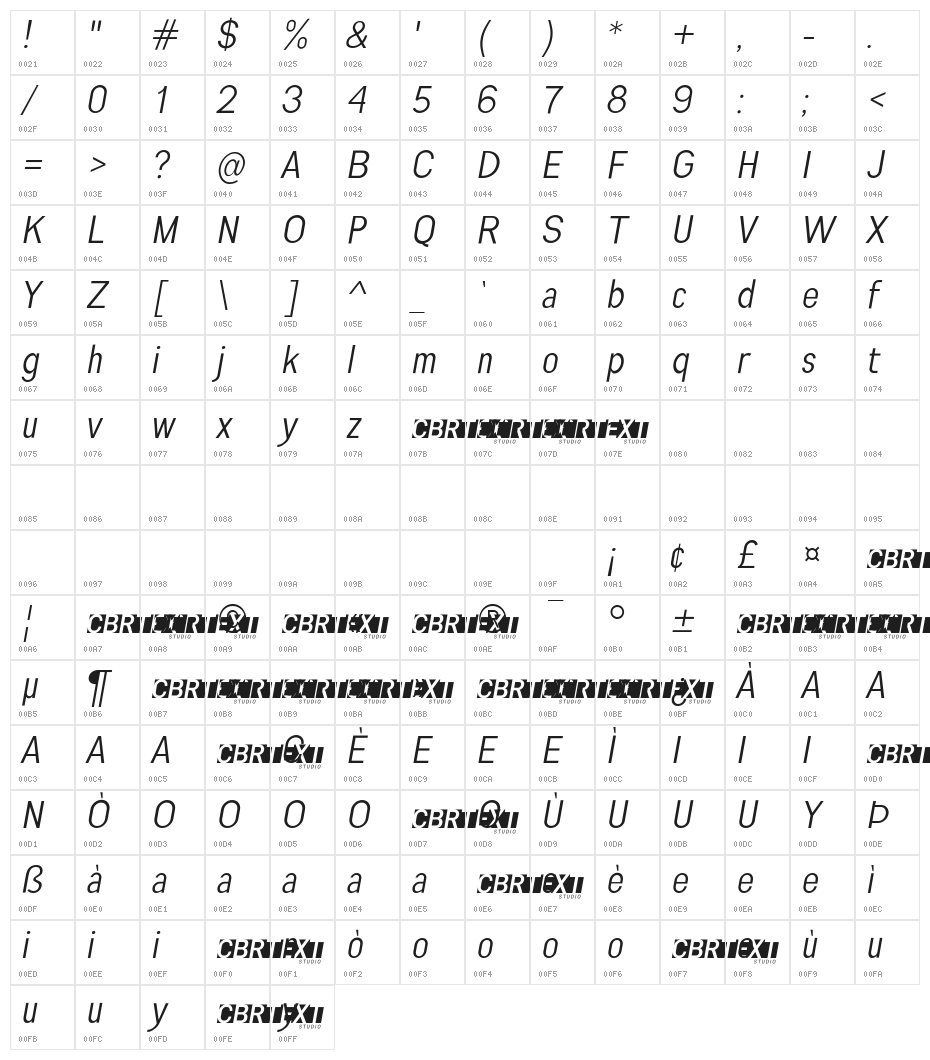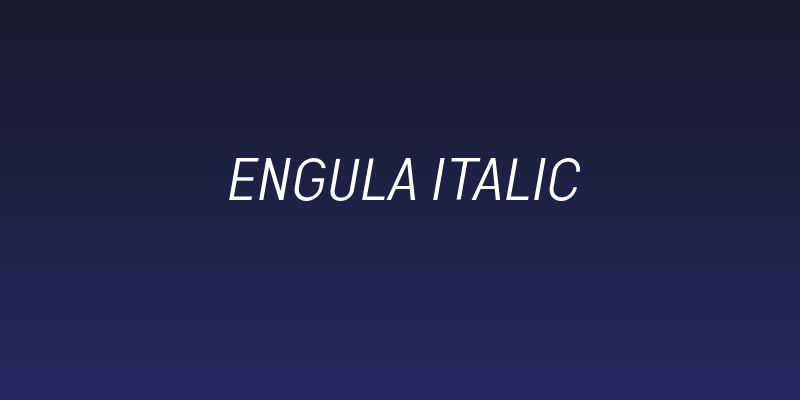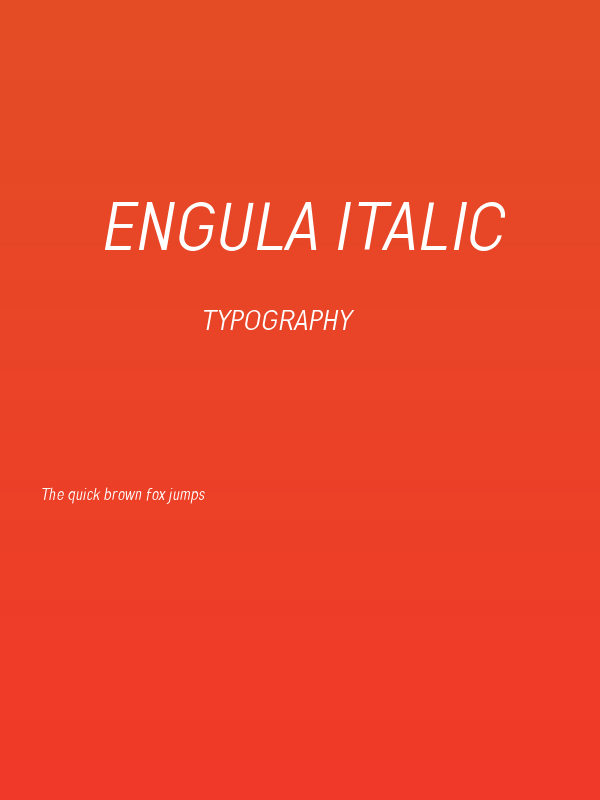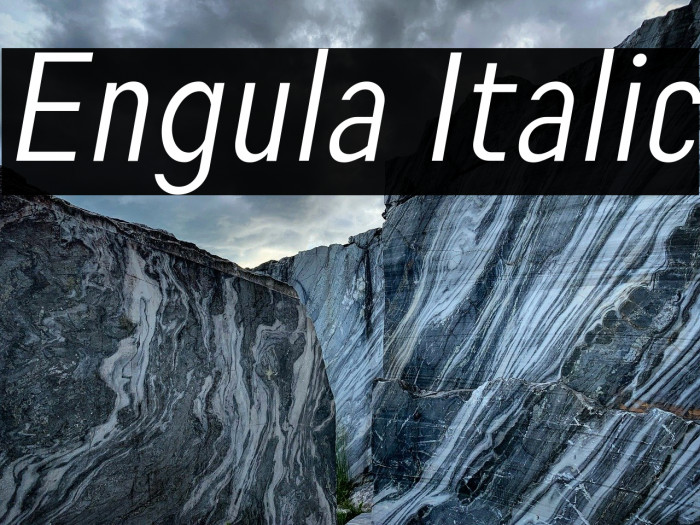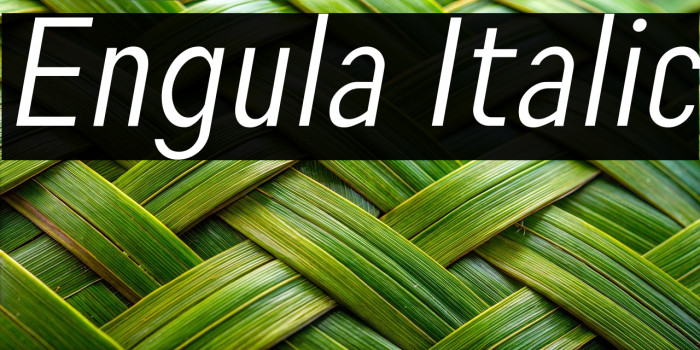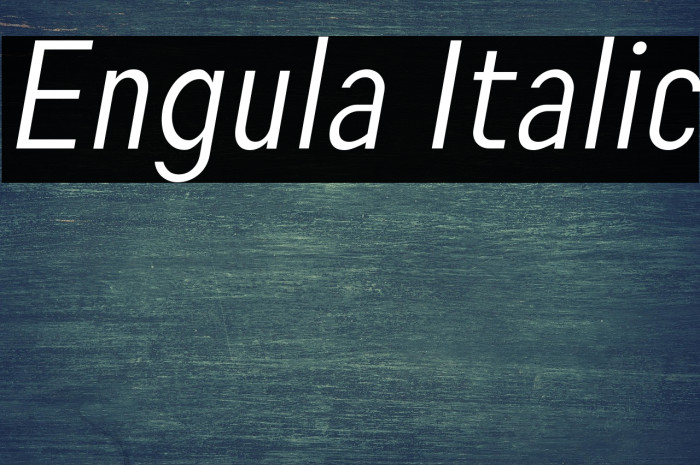
Engula Italic Font
Engula Italic Description
This font features a sleek and modern italic style, characterized by its clean lines and smooth curves. The letters are slightly slanted, giving a sense of motion and elegance. The uppercase and lowercase letters maintain a consistent style, with a harmonious balance between thick and thin strokes. The numerals are clear and easily distinguishable, while the special characters are well-integrated into the overall design. This font exudes a contemporary feel, making it suitable for a variety of digital and print applications.
| Proposed Projects | Ideal for branding, advertising, digital content, and editorial design. |